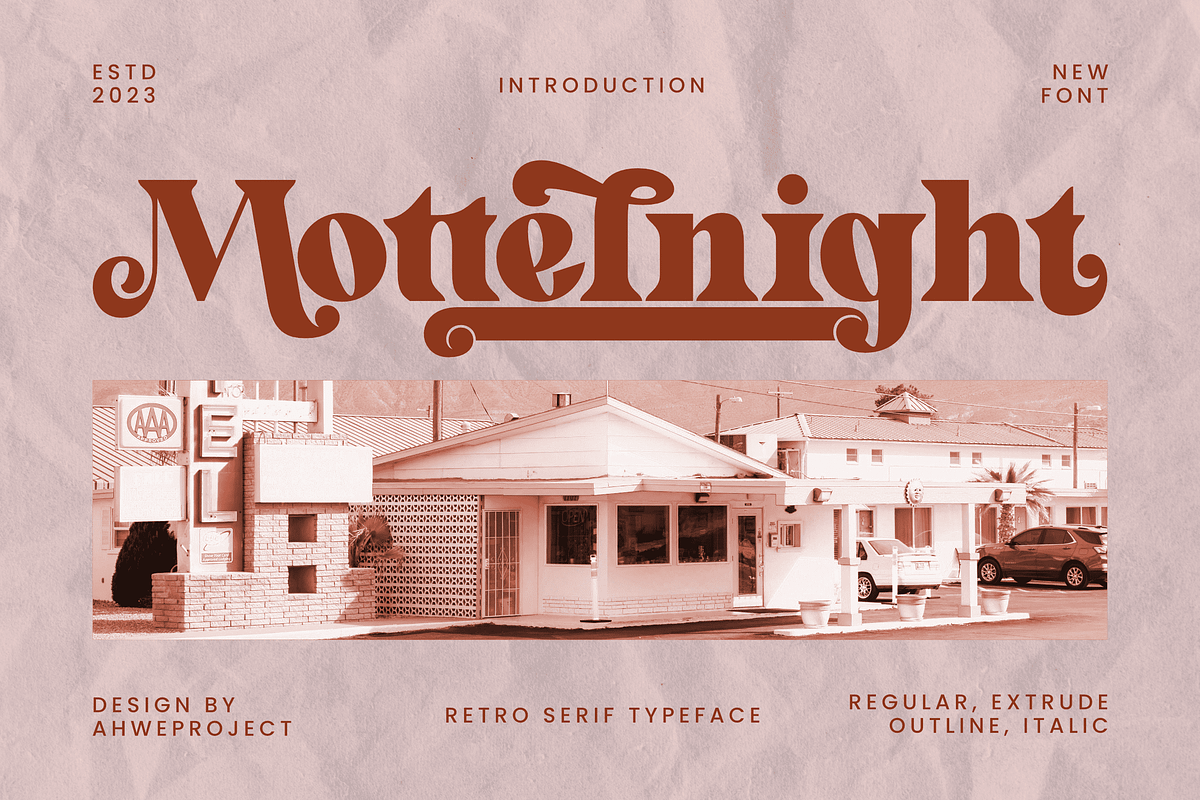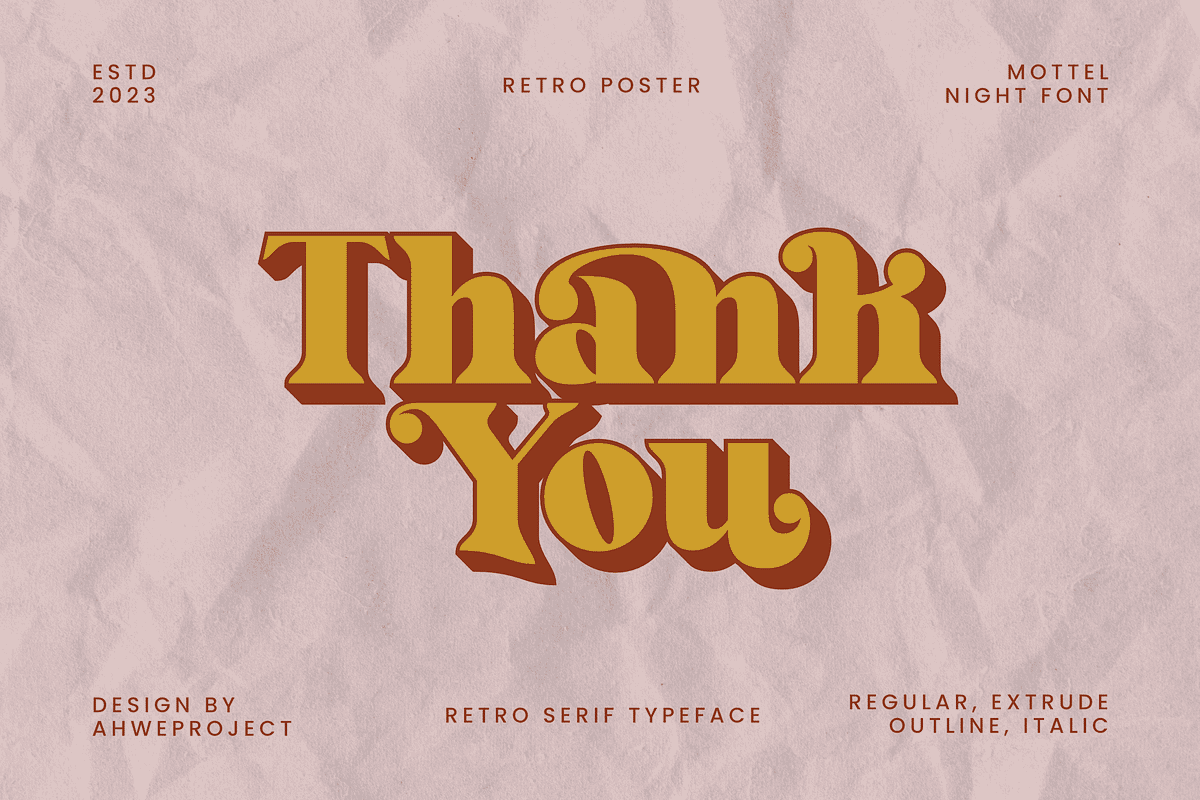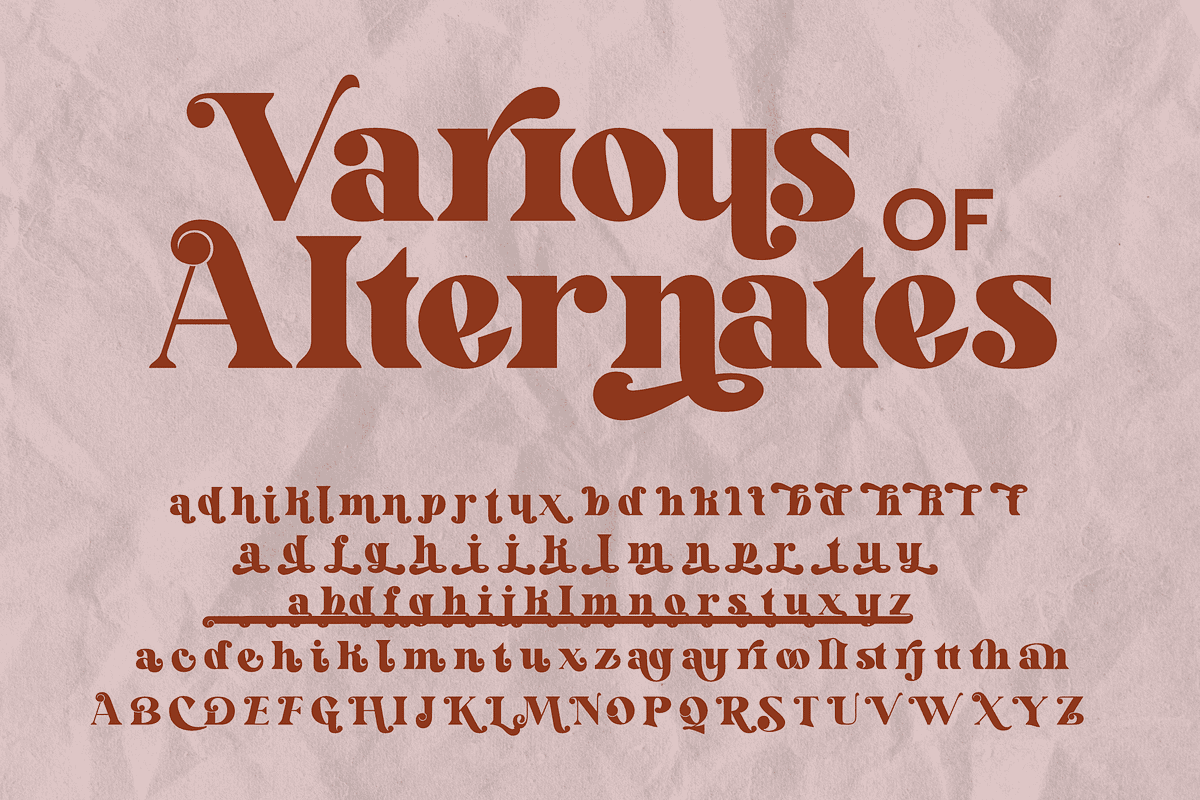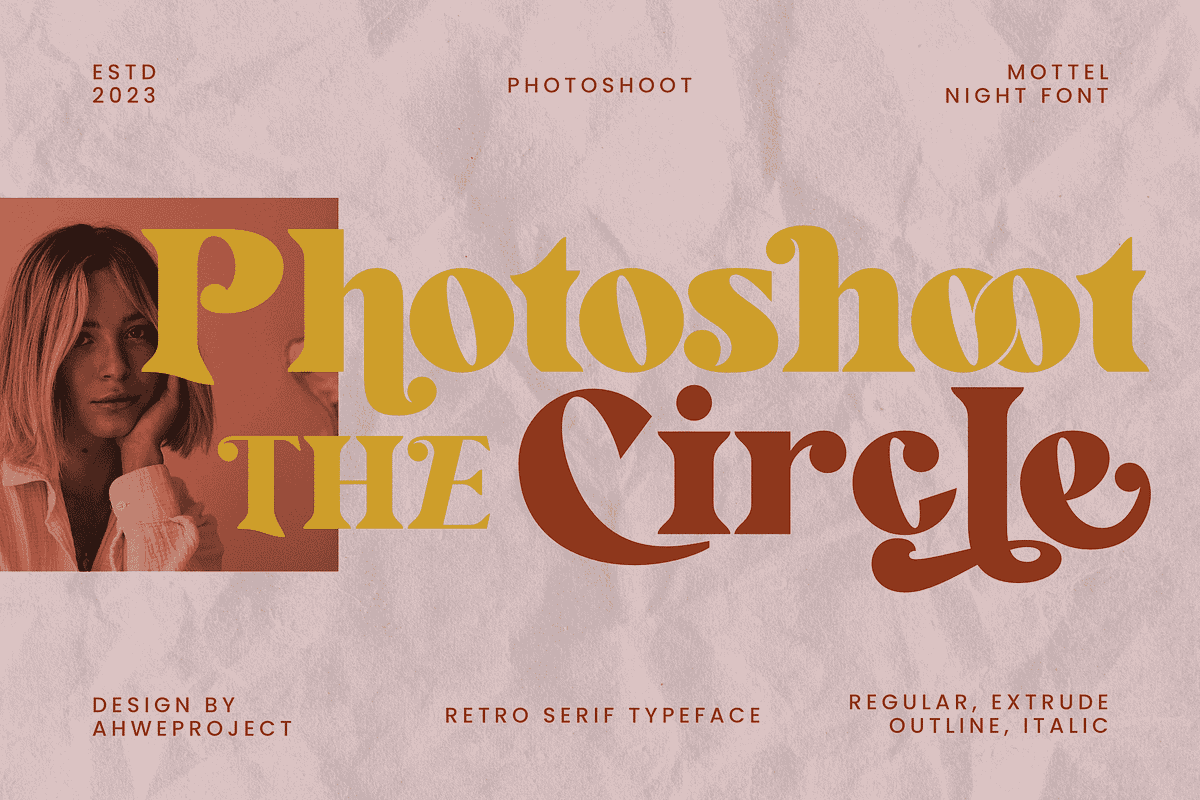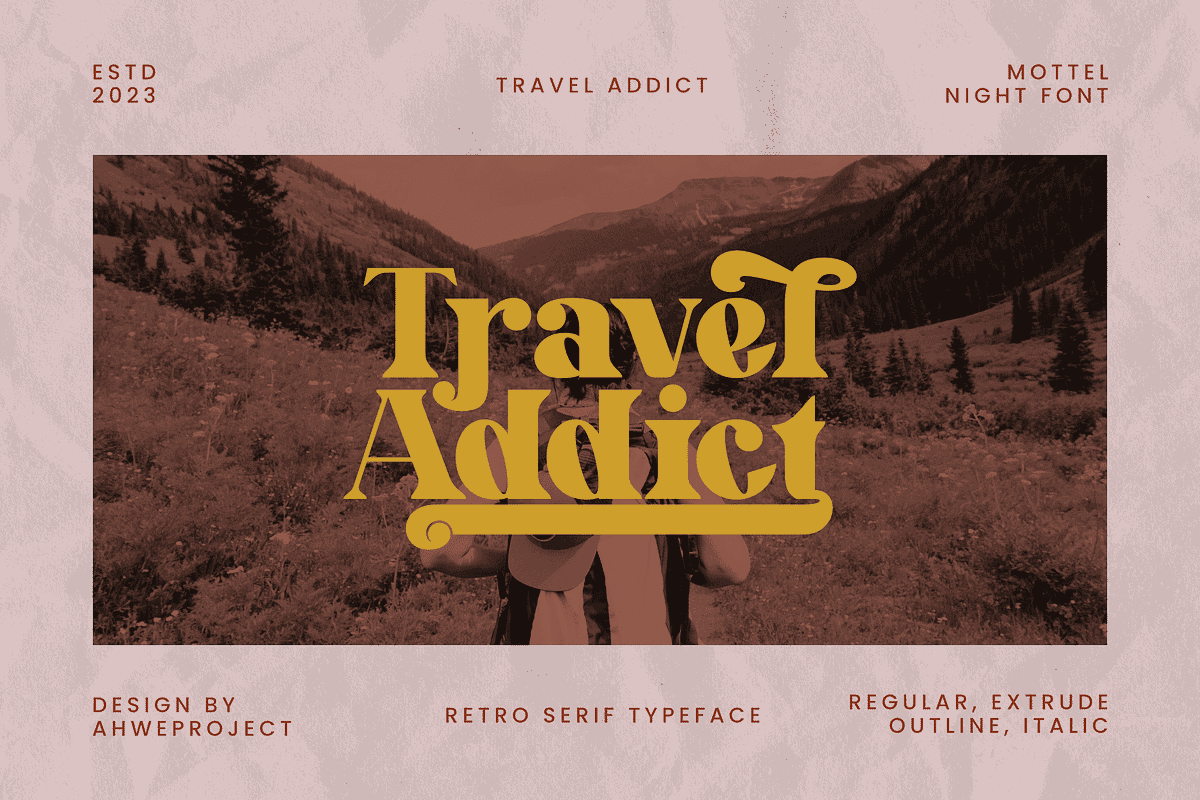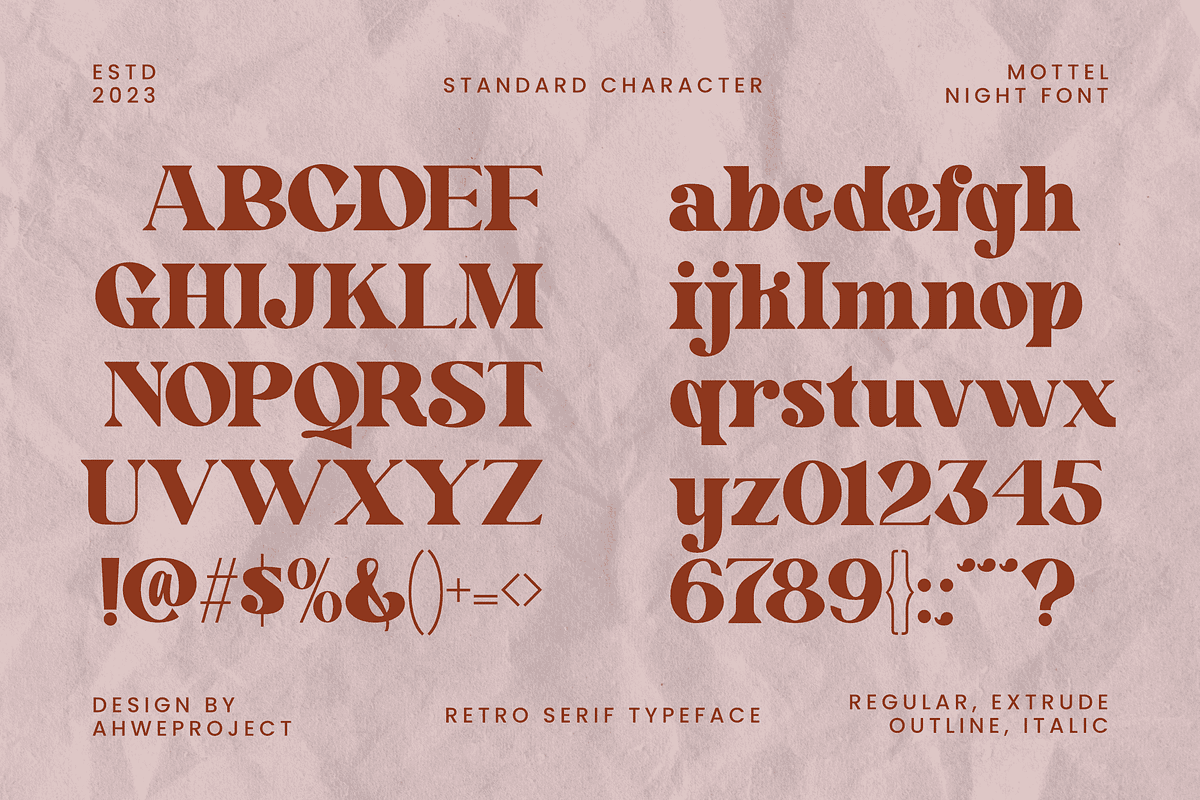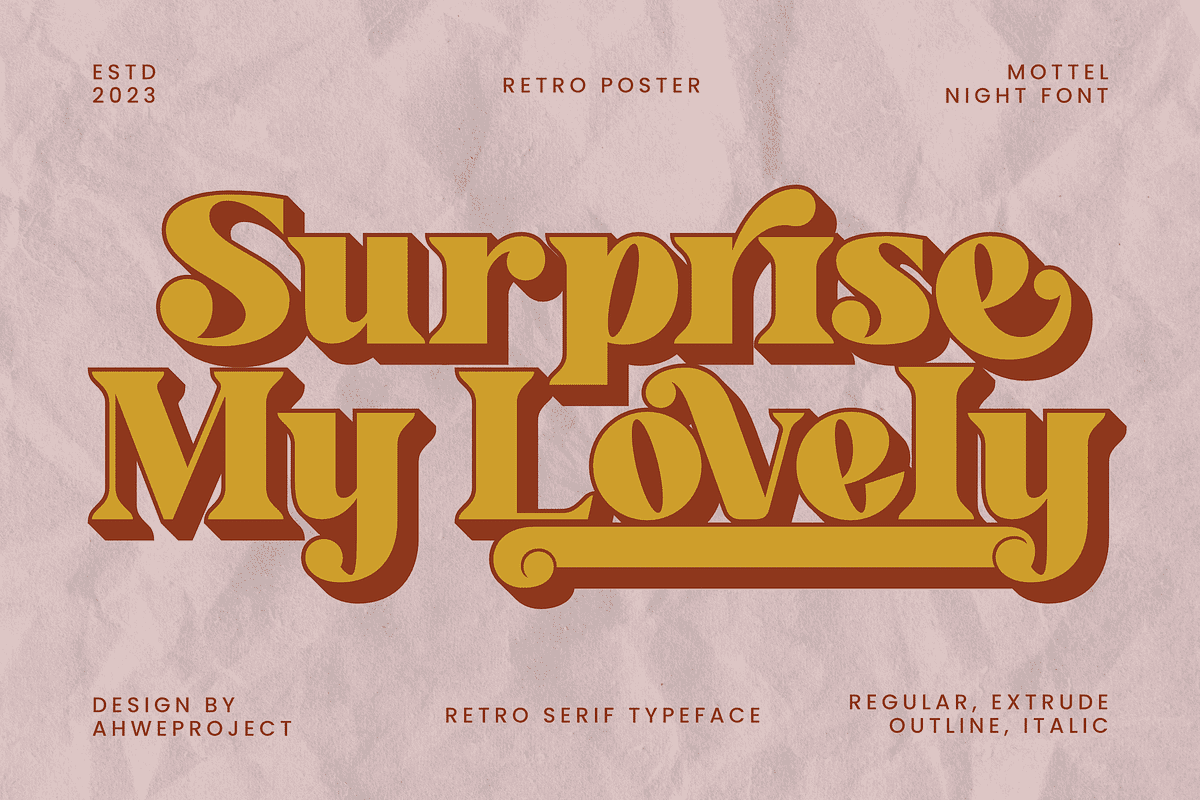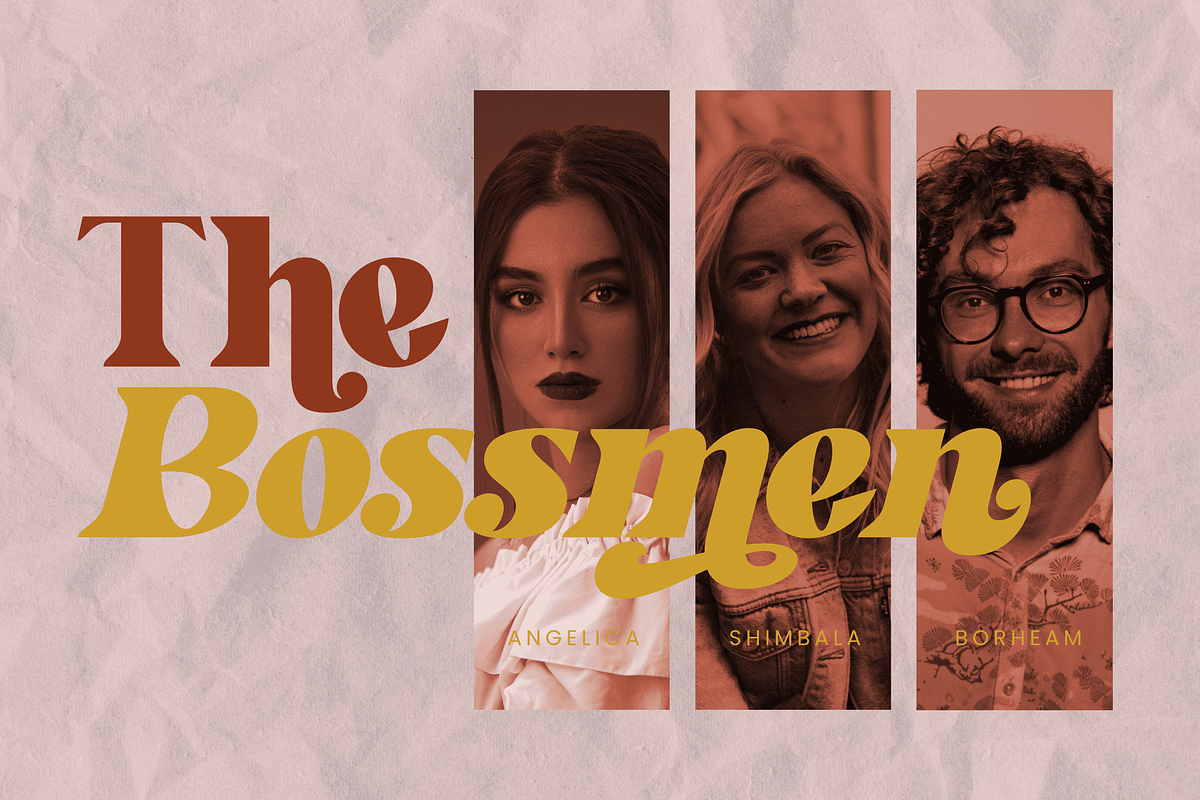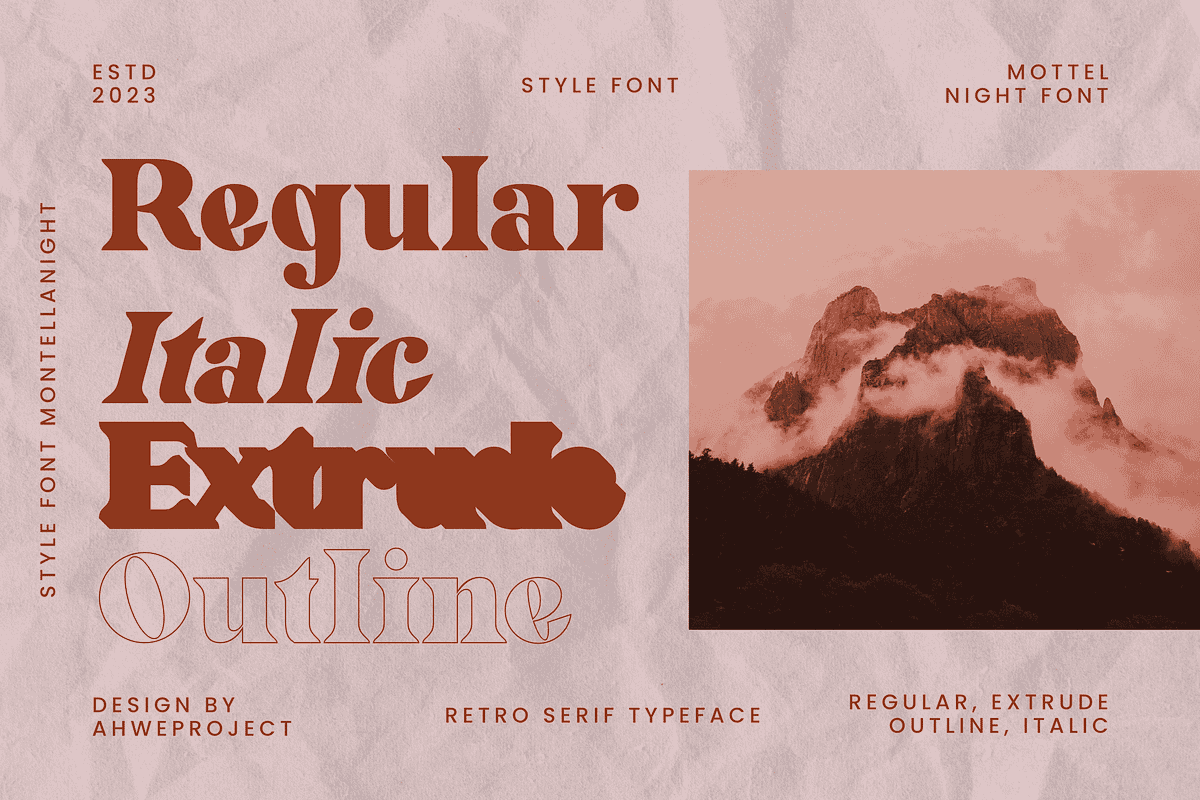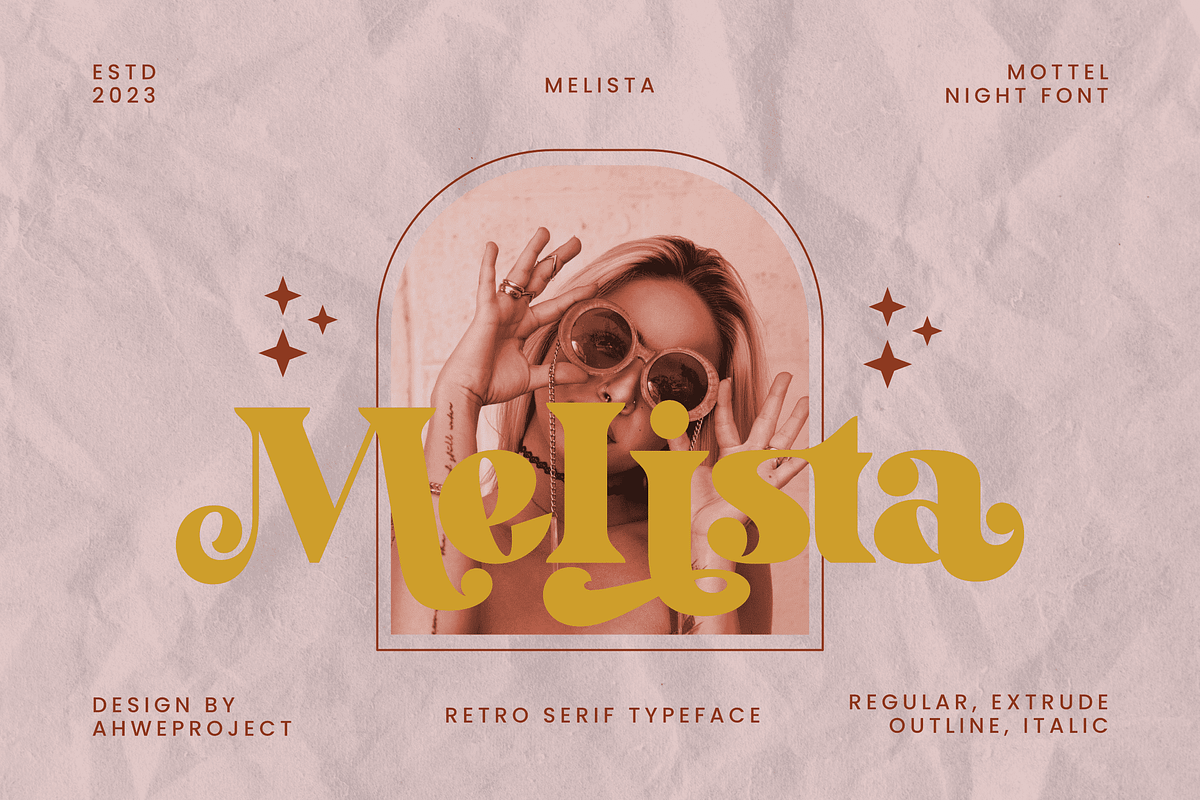
Mottelnight
Mottelnight feels playfully nostalgic and delivers an incredible vintage aesthetic. Use this serif font to add that special retro touch to any design idea you can think of! This font is perfect for logos, quotes, poster, headline, blog posts, instagram post – stories, magazine, branding projects, and much more. This font is PUA encoded which means you can access all of the glyphs and swashes with ease!